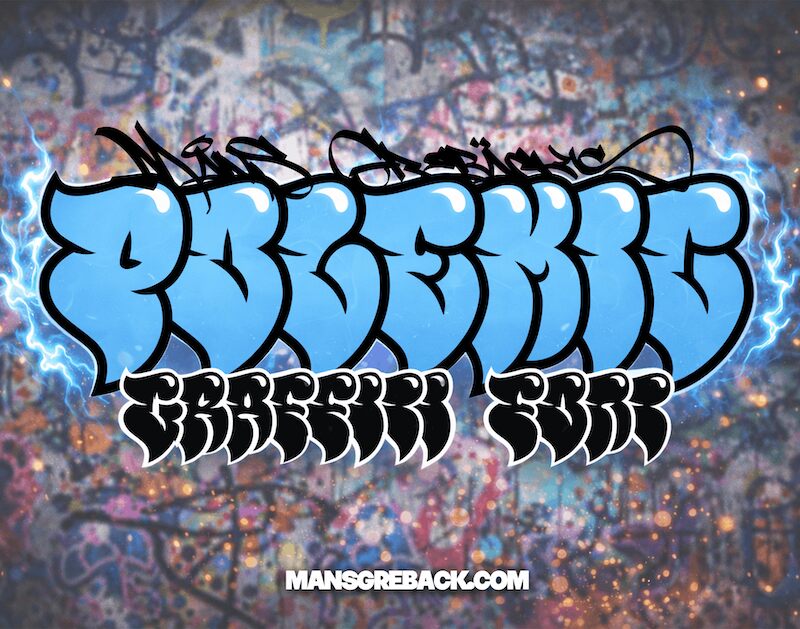
Polemic font by Mans Greback is a free graffiti outline typeface that hits with the punch of a street throw-up. The letters are big and ballooned, with chunky curves and sharp inner cuts that feel sprayed in one fast, confident motion. Bold black contours give each shape depth and attitude, like wet marker lines drying on a wall, making words look loud even before you add color.
Using Polemic, you get a ready-made backbone for posters, album covers, streetwear graphics, event flyers, YouTube thumbnails, and bold logo marks that need raw energy. This free font is especially strong when you stack it large and tight, then flood the interiors with bright fills or textures. Pair it with a clean, neutral sans for body text to let the graffiti forms take center stage without visual overload.